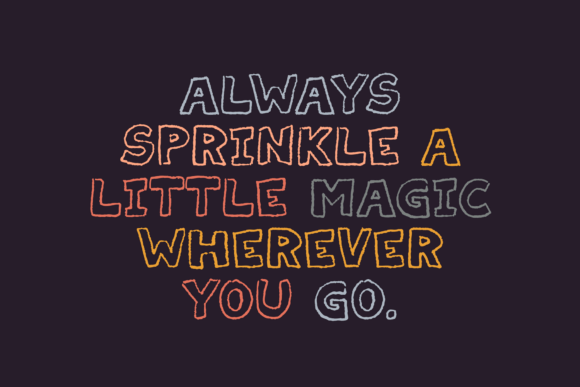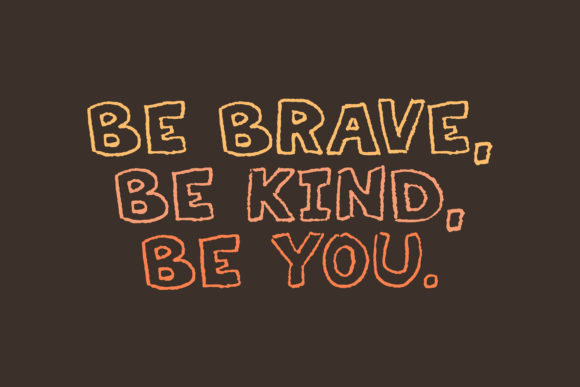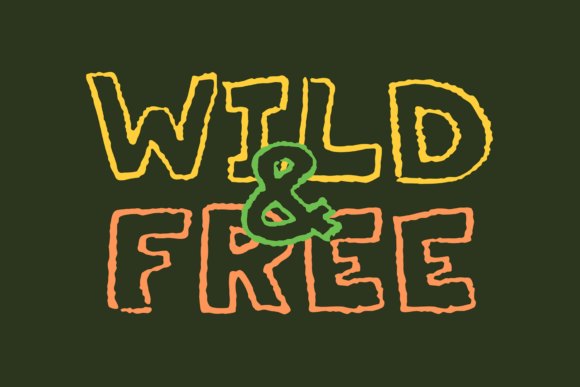
Introduction to Kindergarten Krayon Font
Kindergarten Krayon is a colorful crayon-inspired font bursting with childlike joy.
Its bold outlines and hand-drawn edges give it an authentic, playful look perfect for preschool resources, kids’ crafts, early learning materials, party invites, and teacher designs The chalk-like texture adds a tactile feel, great for both print and digital use.
Key Features of Kindergarten Krayon Font
Why Choose Kindergarten Krayon Font?